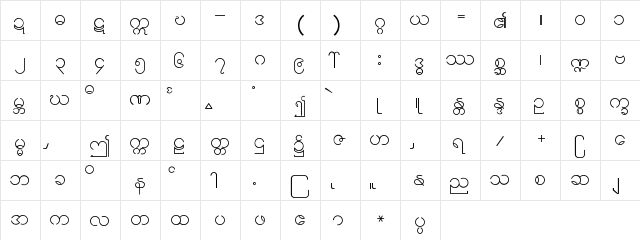
Burmese1_1 Regular Font Preview
Burmese1_1 Regular
Design Context for Burmese1_1 Typeface
Burmese1_1 takes a measured approach to typography — its balanced proportions and neutral character make it a reliable workhorse for both digital and print work.